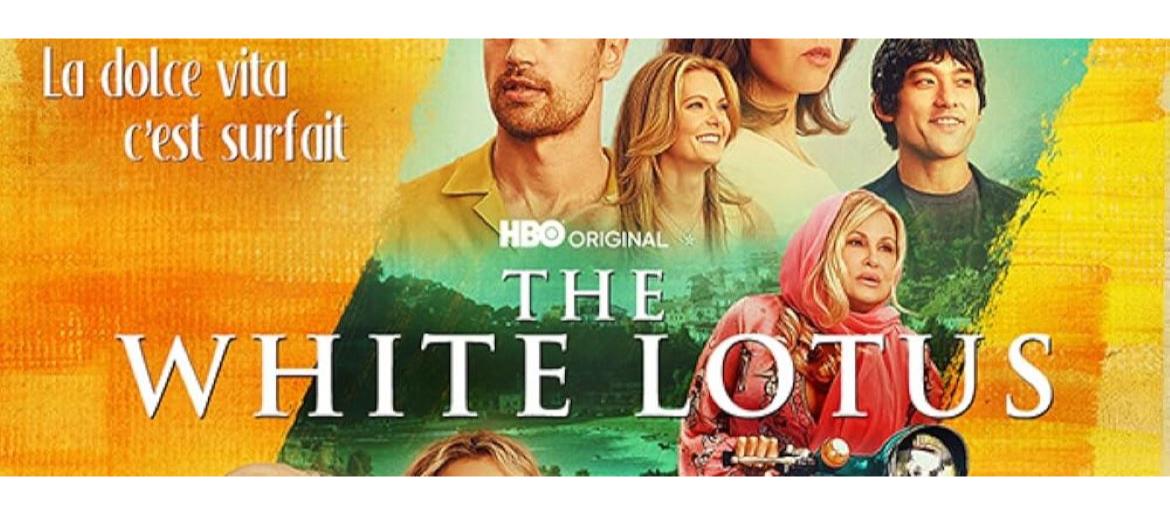
The White Lotus Font
The White Lotus font captures the refined, luxurious, and subtly unsettling mood of HBO’s hit series. Its elegant serif structure and graceful spacing echo the show’s blend of tropical beauty and underlying tension. This style works wonderfully for premium branding, travel-themed designs, and any project aiming for an upscale aesthetic with a mysterious edge. The original logo uses Trajan Pro Bold, but if you’re looking for a similar feel, you can download the free alternatives below.
About The White Lotus
The White Lotus is a celebrated HBO anthology series that debuted in 2021. Each season unfolds at a different luxury White Lotus resort, using its idyllic setting as a backdrop for sharp social satire and intricate character drama. The show explores themes of privilege, morality, and human nature through the lives of guests and staff whose stories gradually reveal the tension beneath the polished exterior. Blending dark humor with compelling narratives, the series has become known for its striking visuals, layered storytelling, and unforgettable ensemble performances.